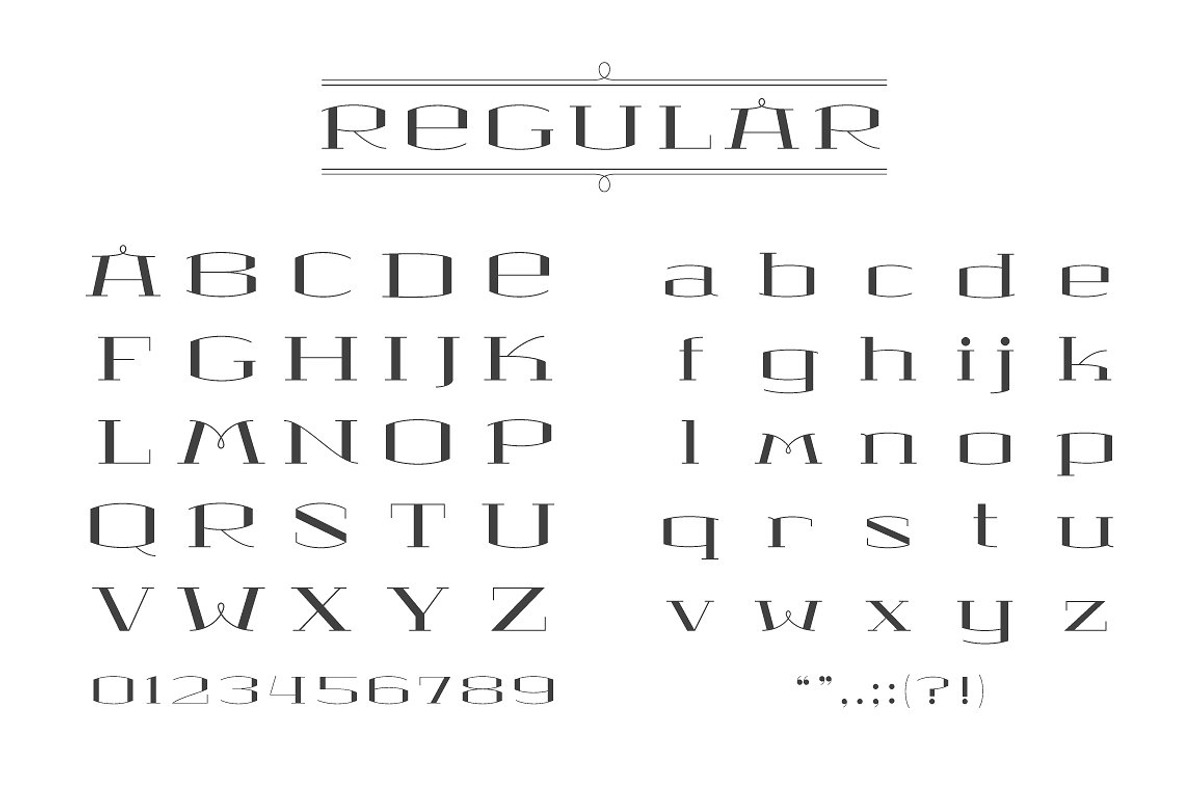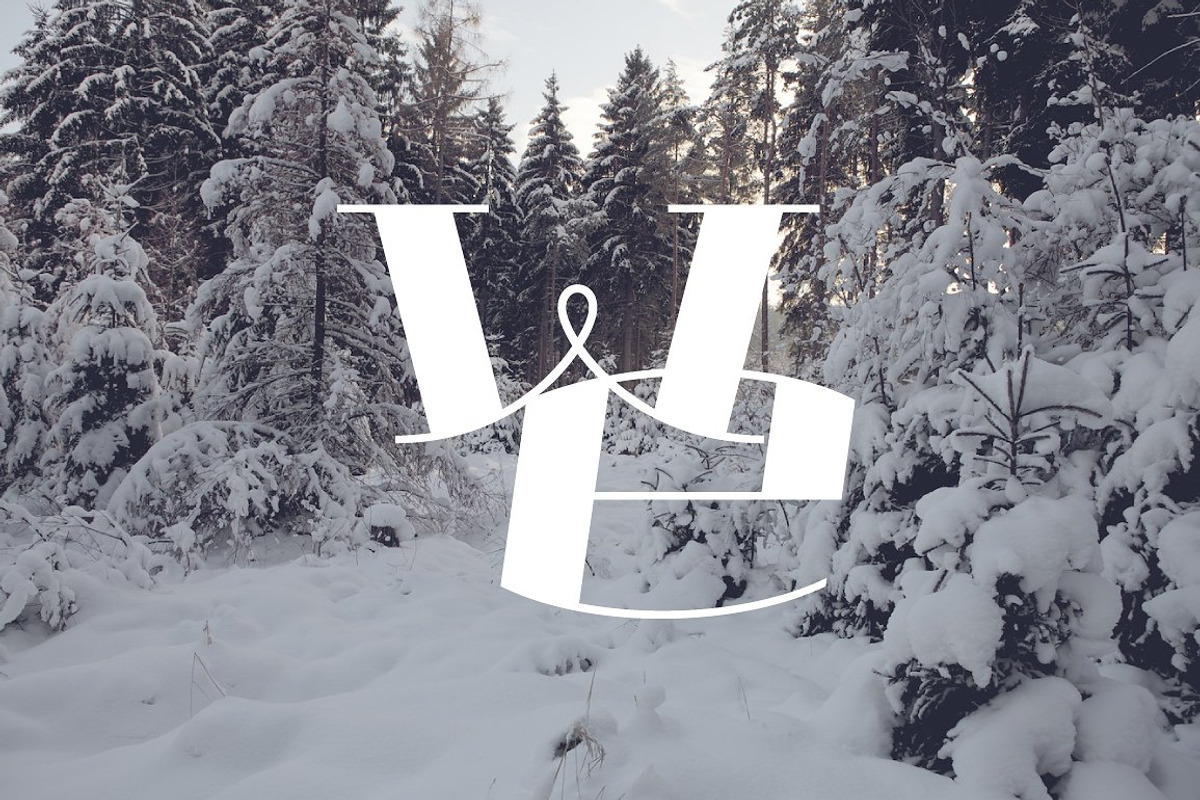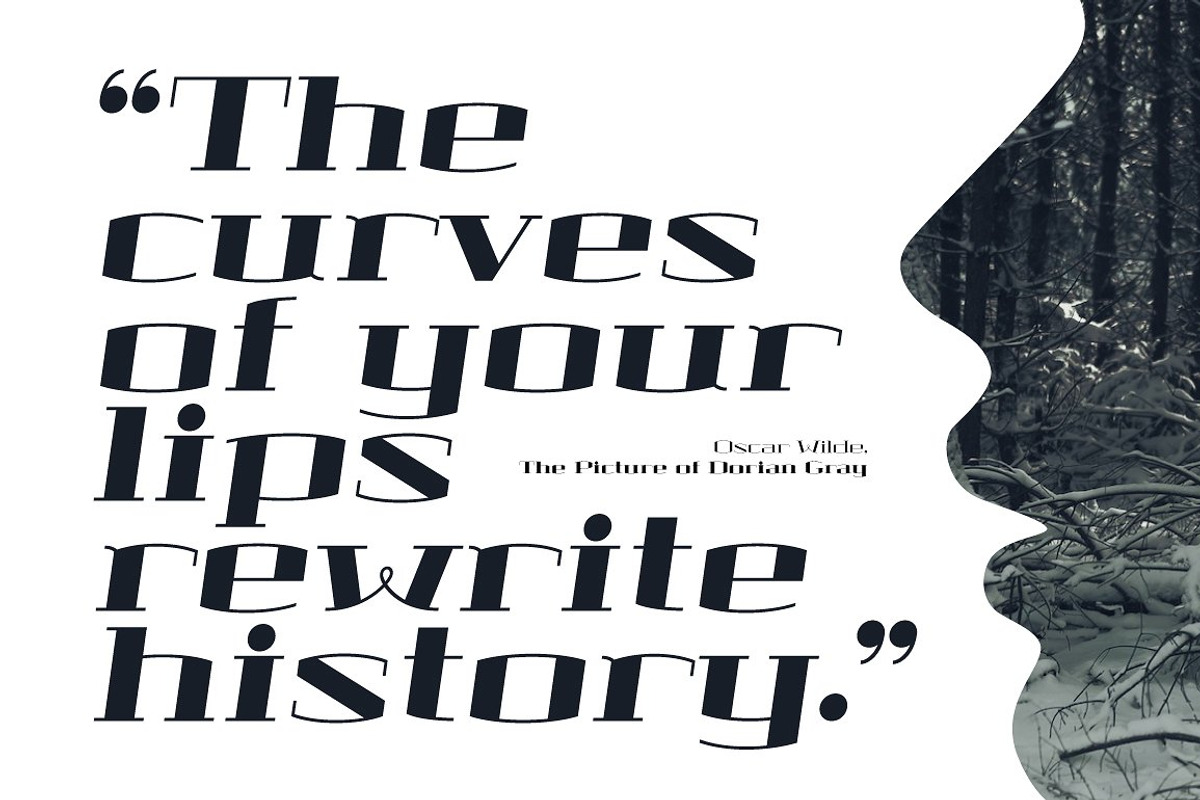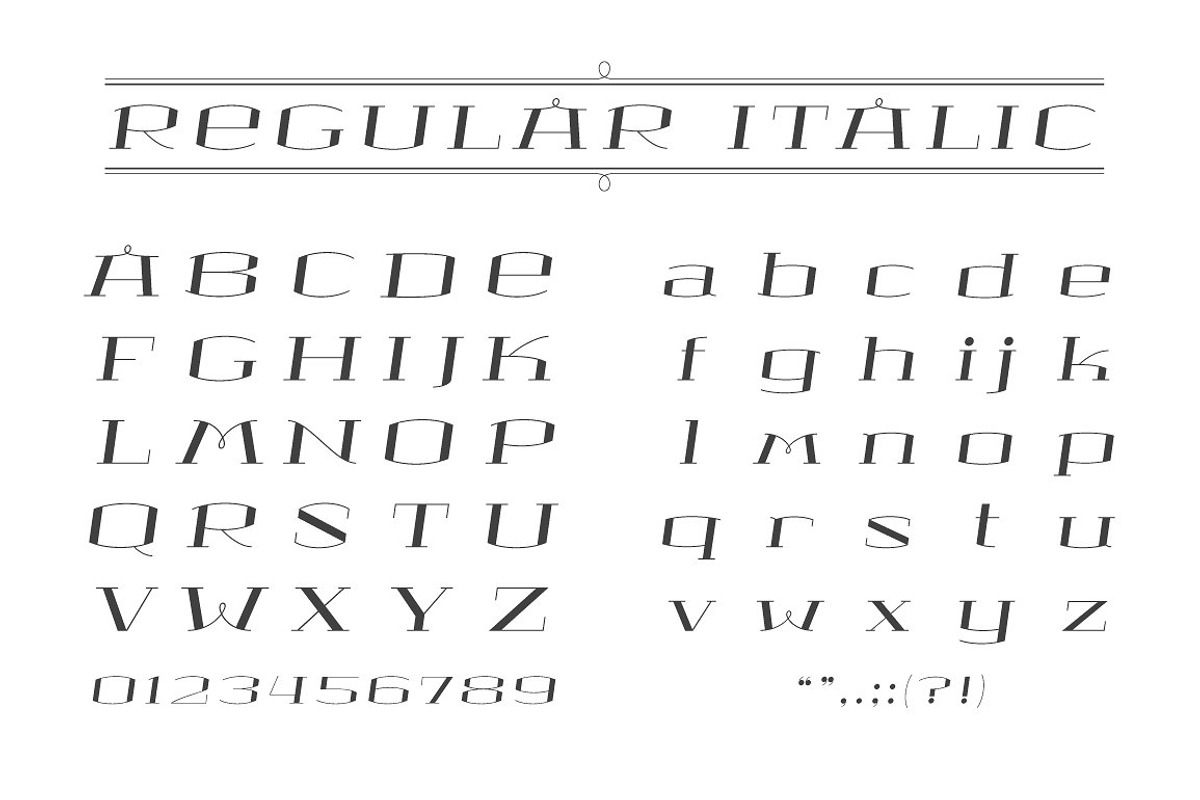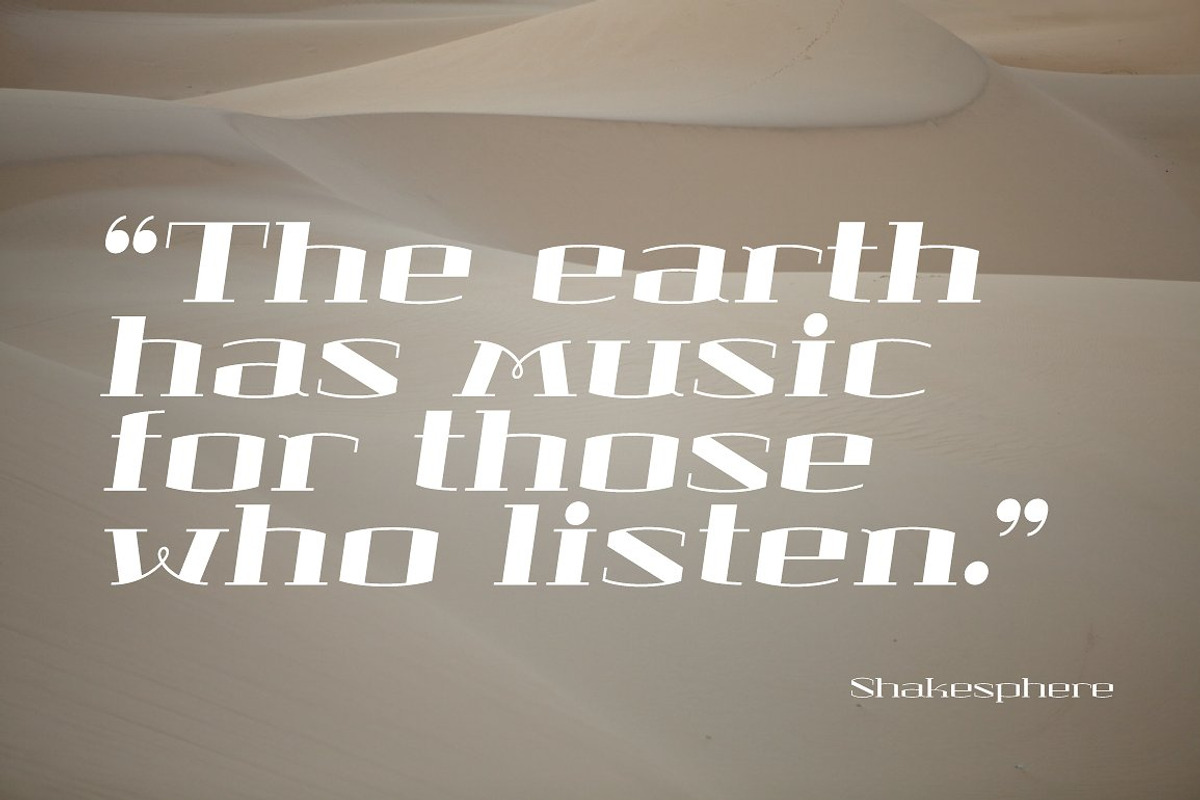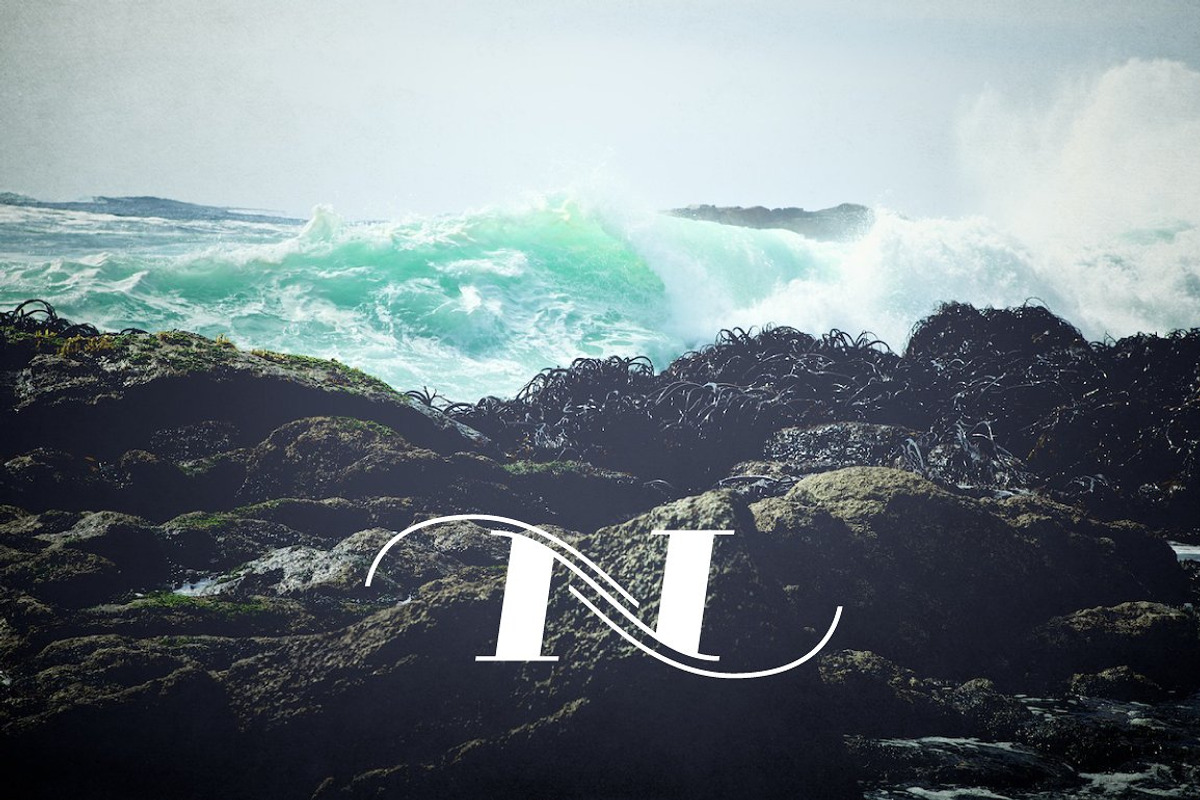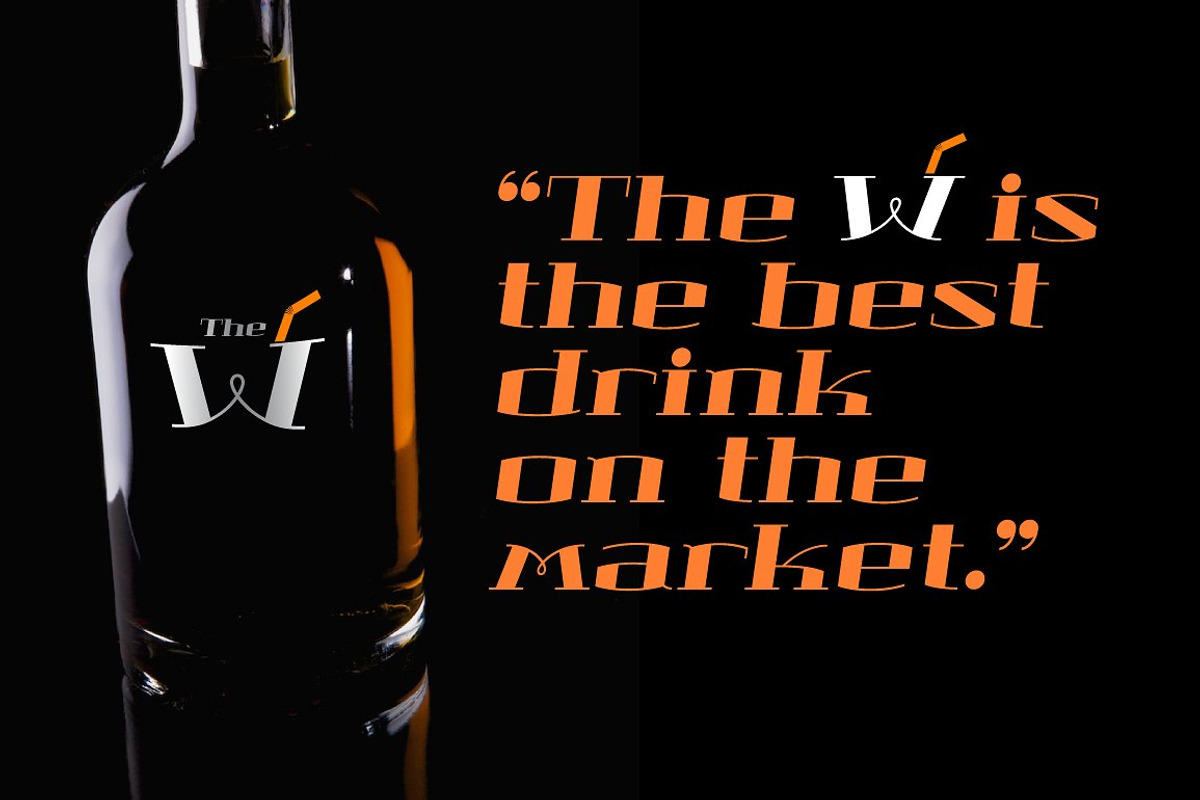
MONA LISA Serif Font Family
MONA LISA Serif Font Family by Darth Vector is a font selected for branding, posters, packaging, typography.
- Uppercase letters, lowercase letters, numbers, Latin multilingual support.
Why MONA LISA Serif Font Family is worth a look
MONA LISA Serif Font Family by Darth Vector fits naturally into Branding, posters, packaging, typography.